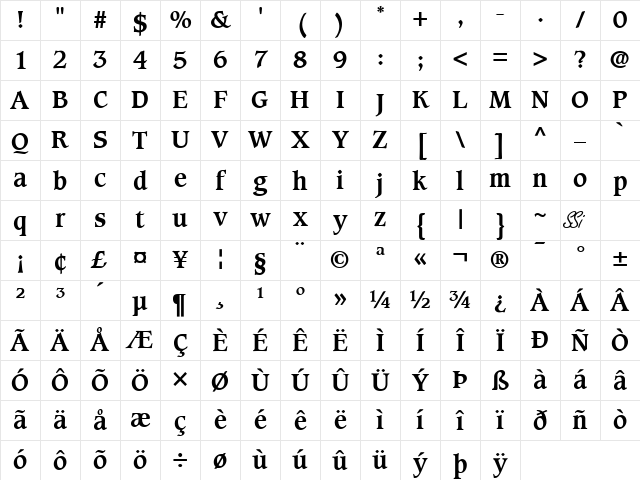
Grammateus SSi is a composed and adaptable typeface that performs quietly and consistently across a wide range of design contexts. Its bold stroke weight gives it real presence on the page.